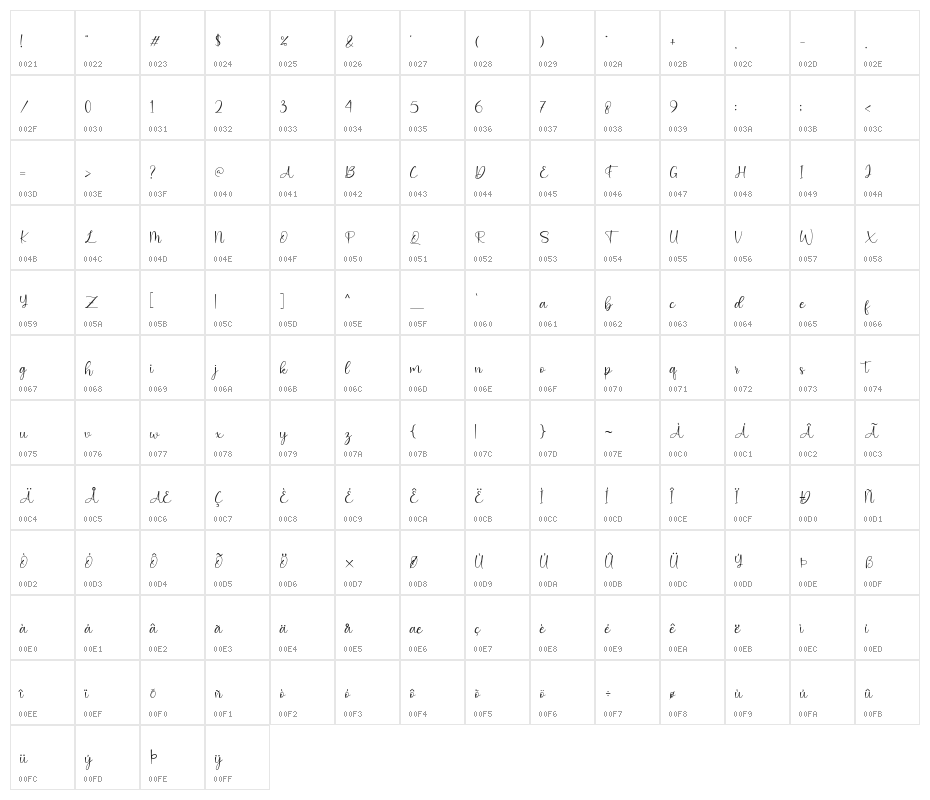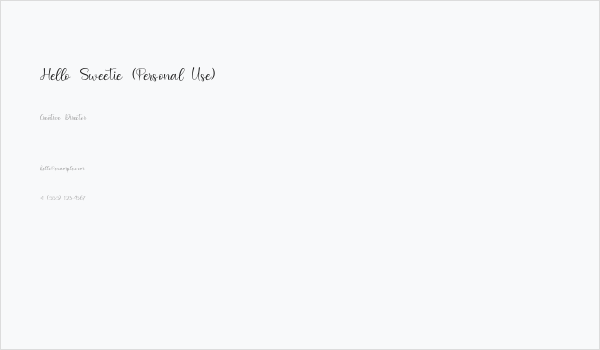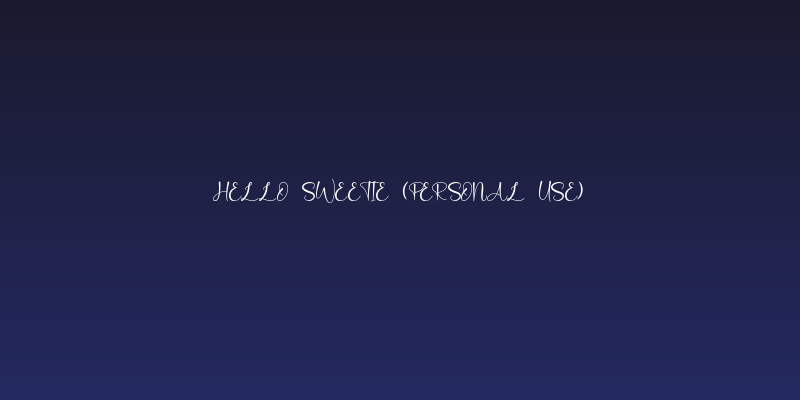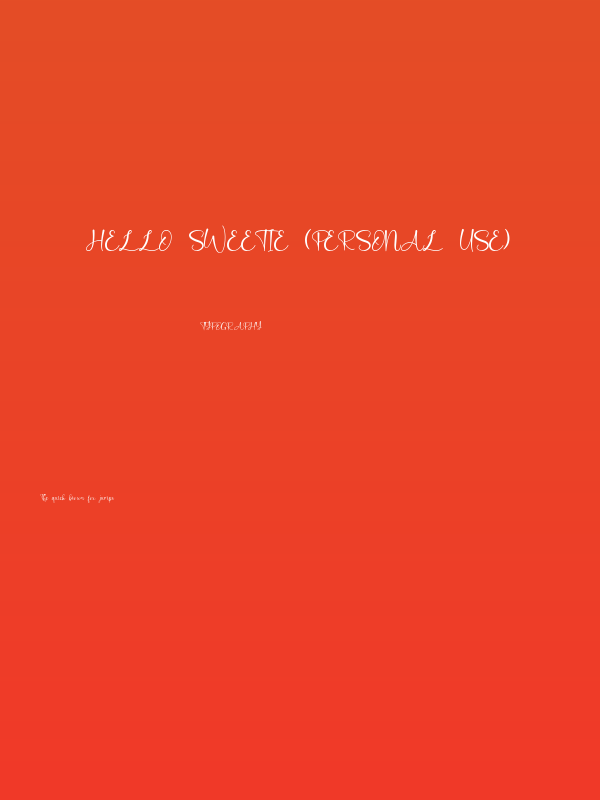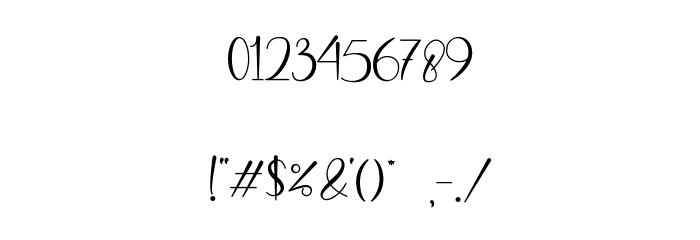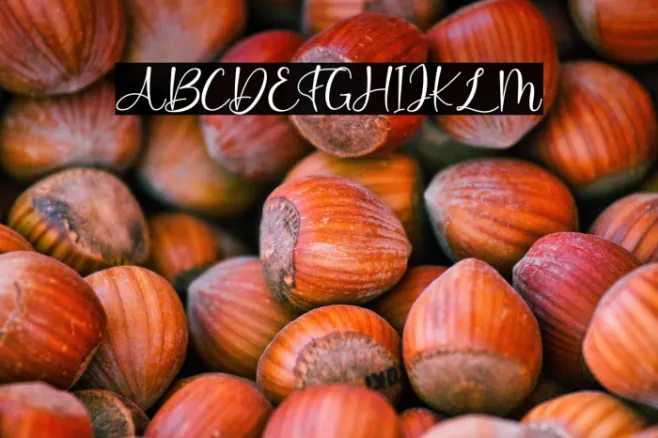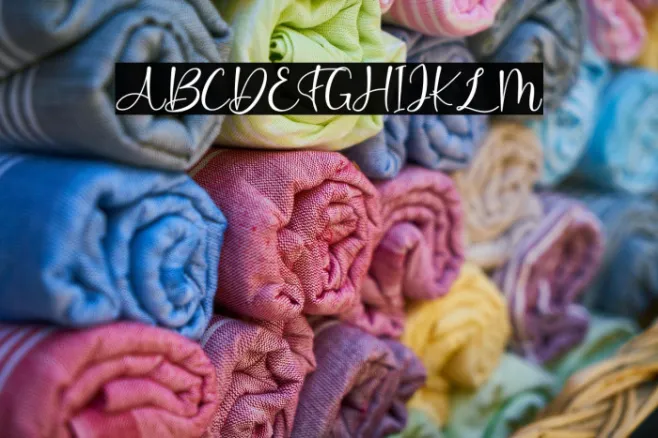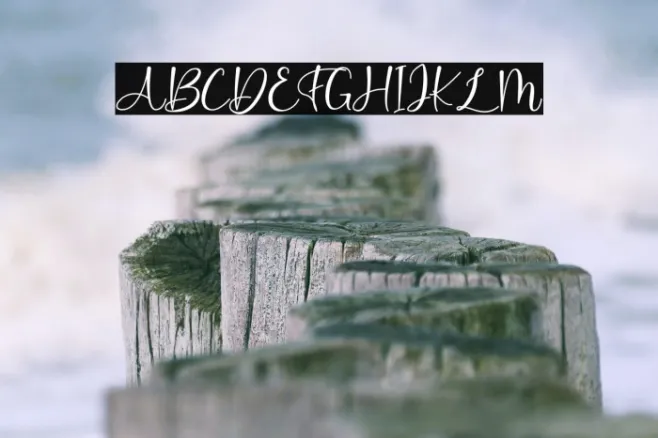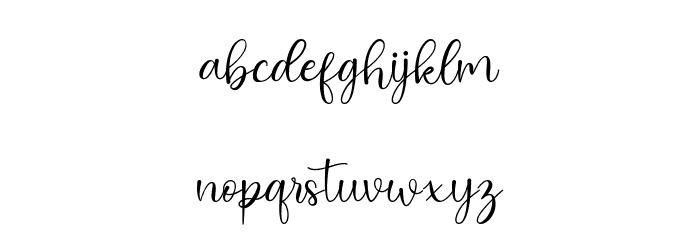
Hello Sweetie (Personal Use) Font
Hello Sweetie (Personal Use) Description
This font exudes a charming and whimsical style, characterized by its flowing, cursive script. The letters are elegantly connected, with a playful and romantic flair that is both inviting and expressive. The uppercase letters feature graceful loops and swirls, while the lowercase letters maintain a consistent, smooth flow. The numerals and special characters are designed to complement the overall aesthetic, maintaining the same fluidity and elegance. This font is perfect for projects that require a personal touch, such as invitations, greeting cards, or branding materials that aim to convey warmth and friendliness.
| Proposed Projects | Ideal for wedding invitations, greeting cards, personal branding, and romantic-themed designs. |